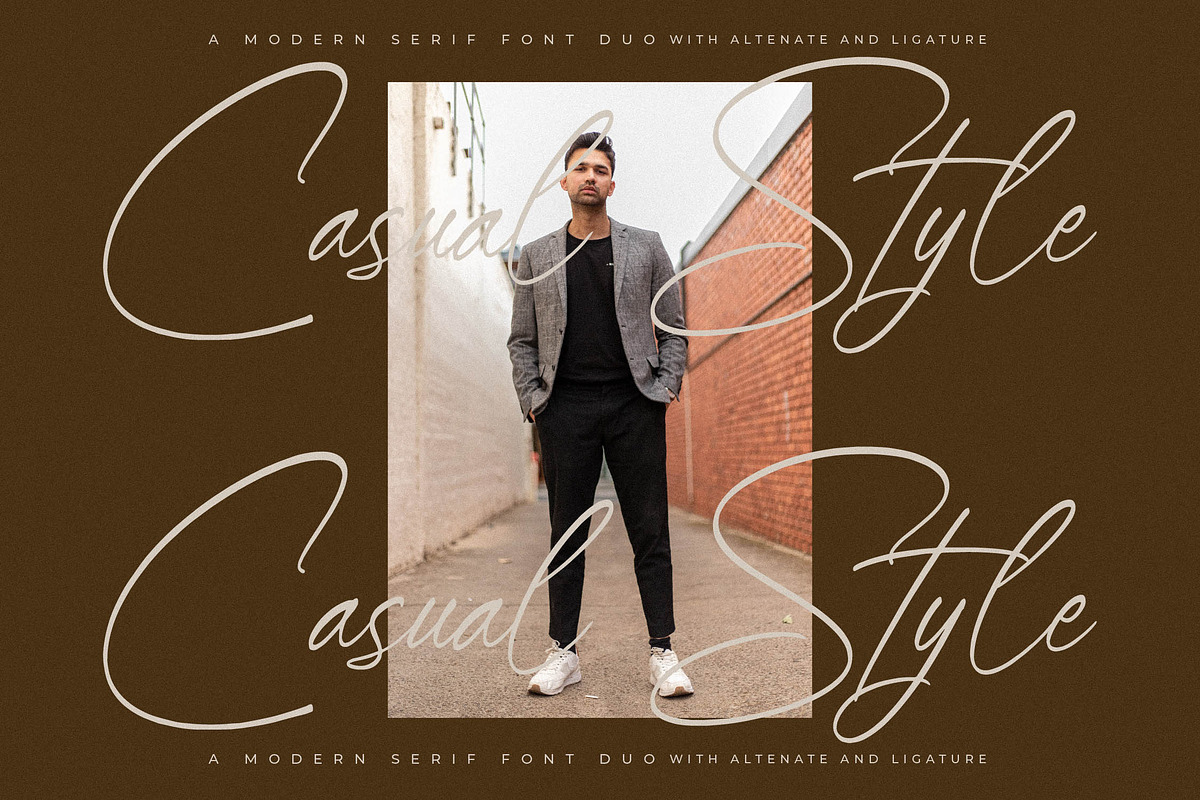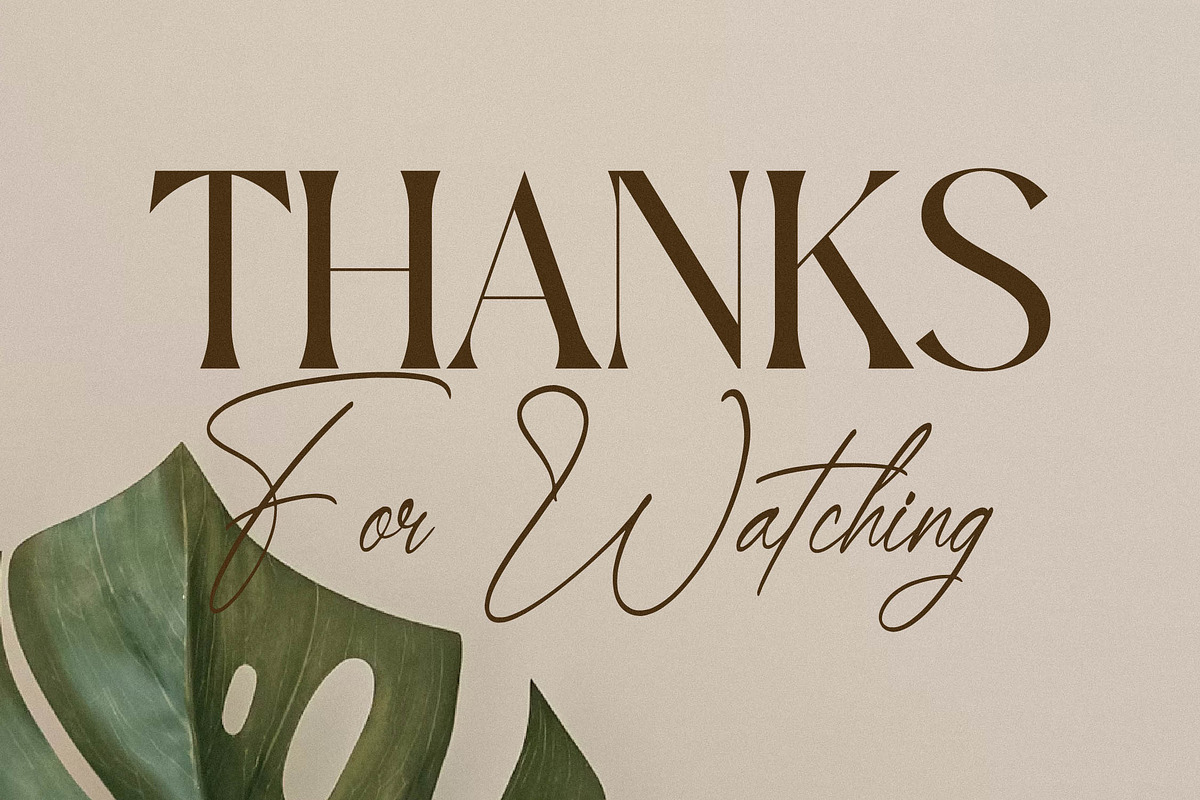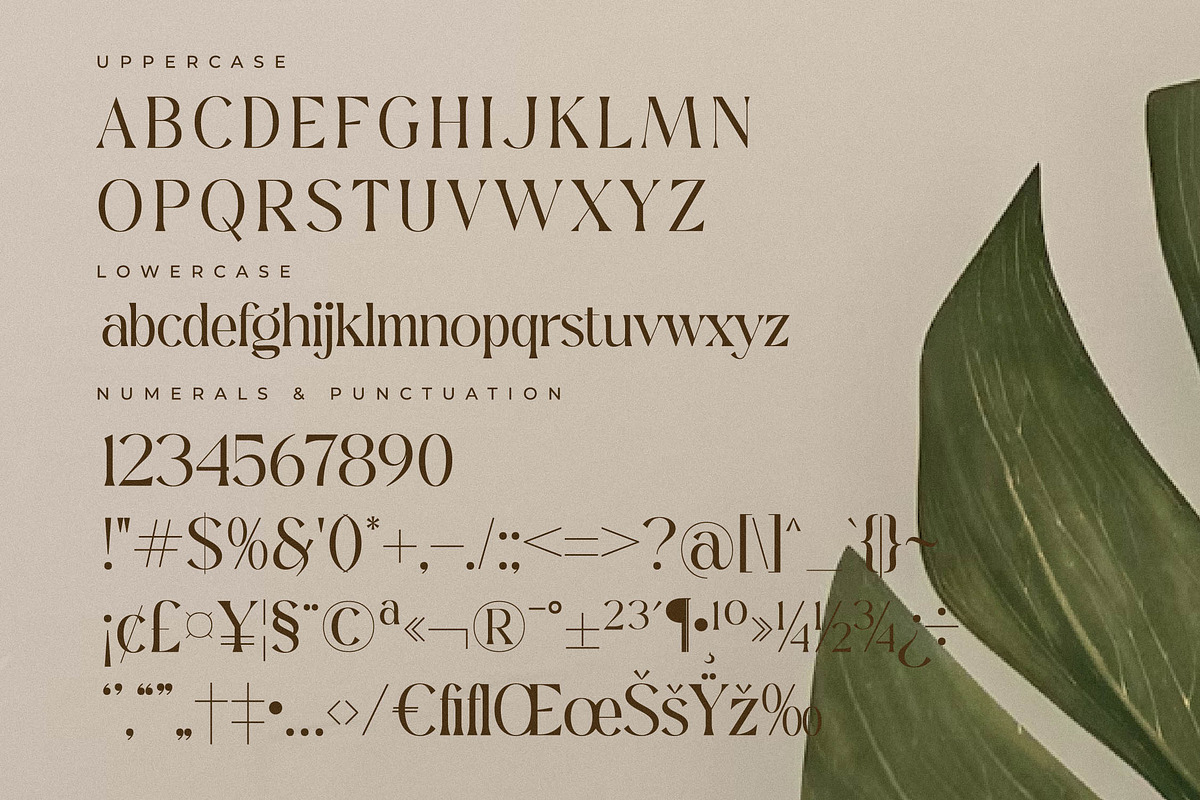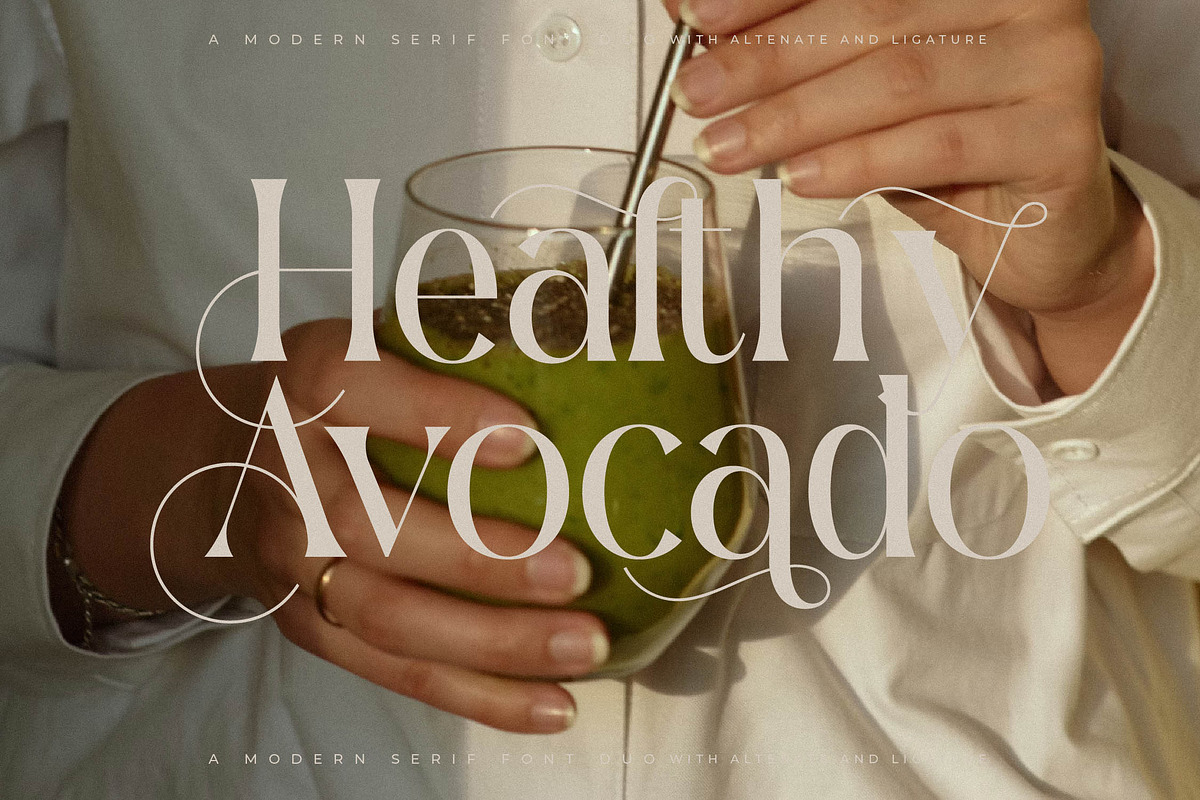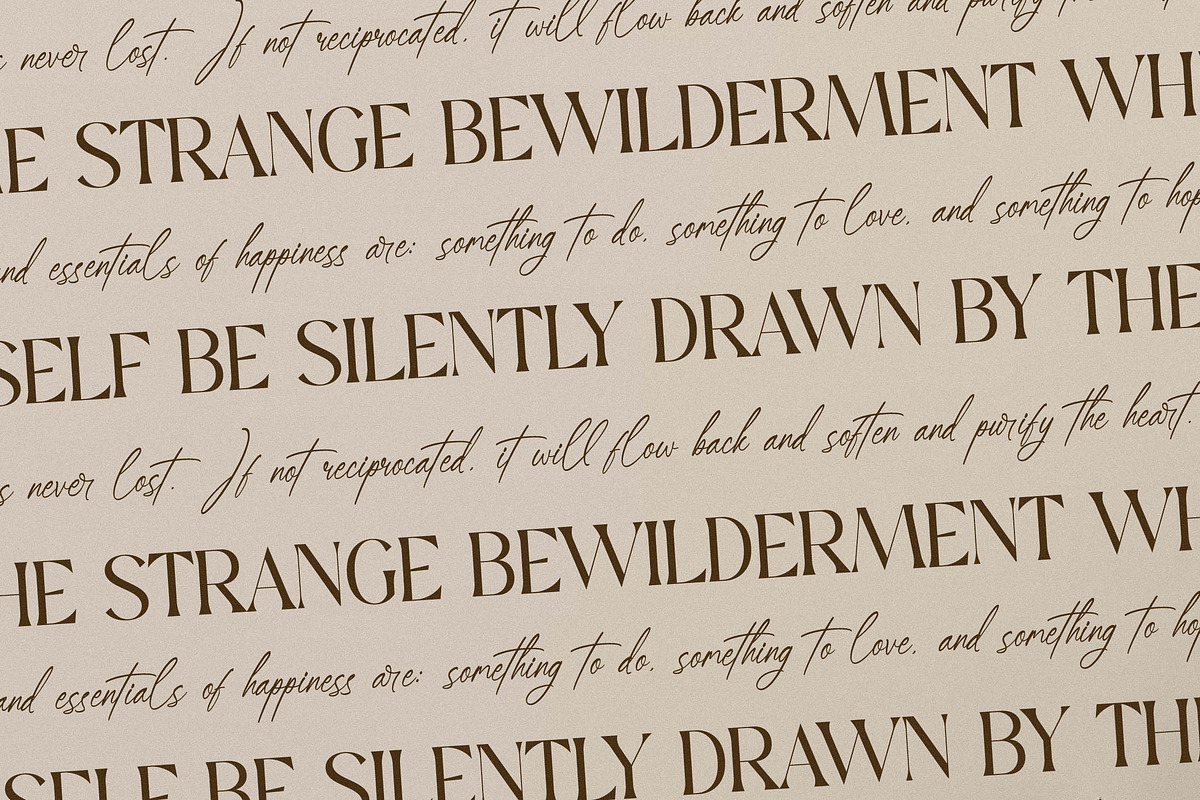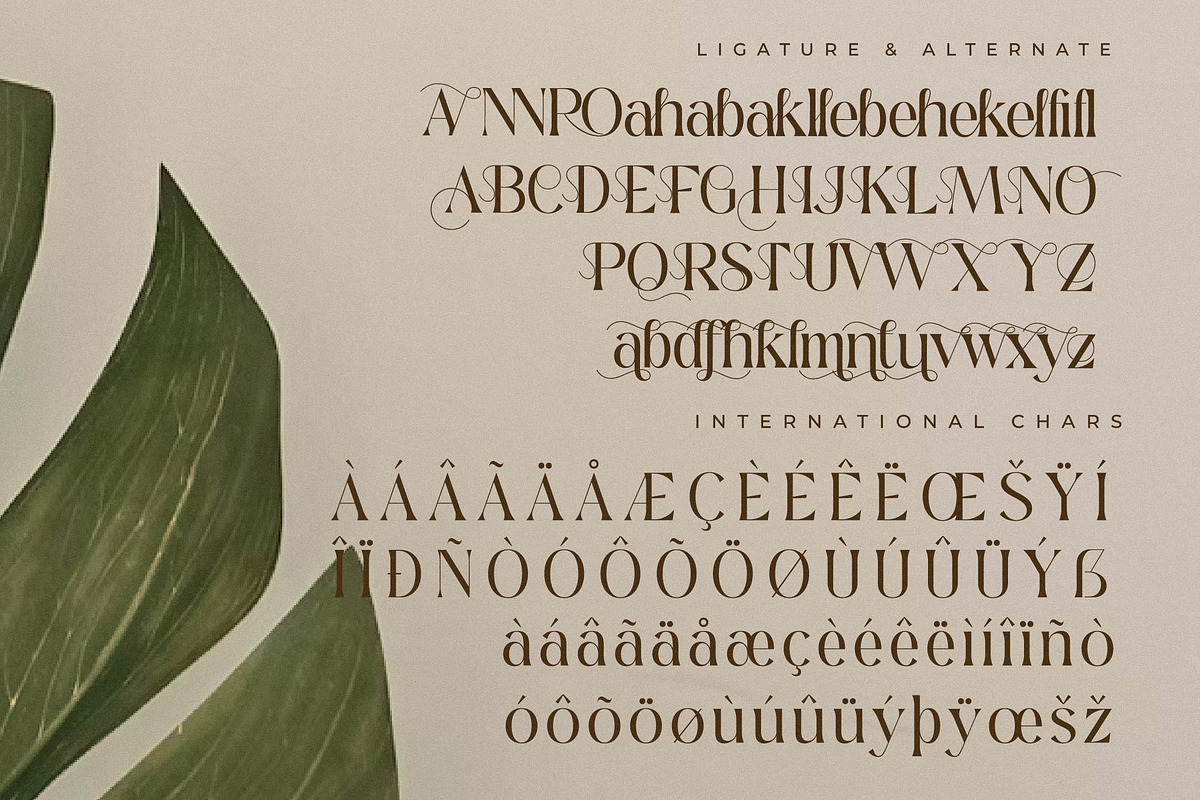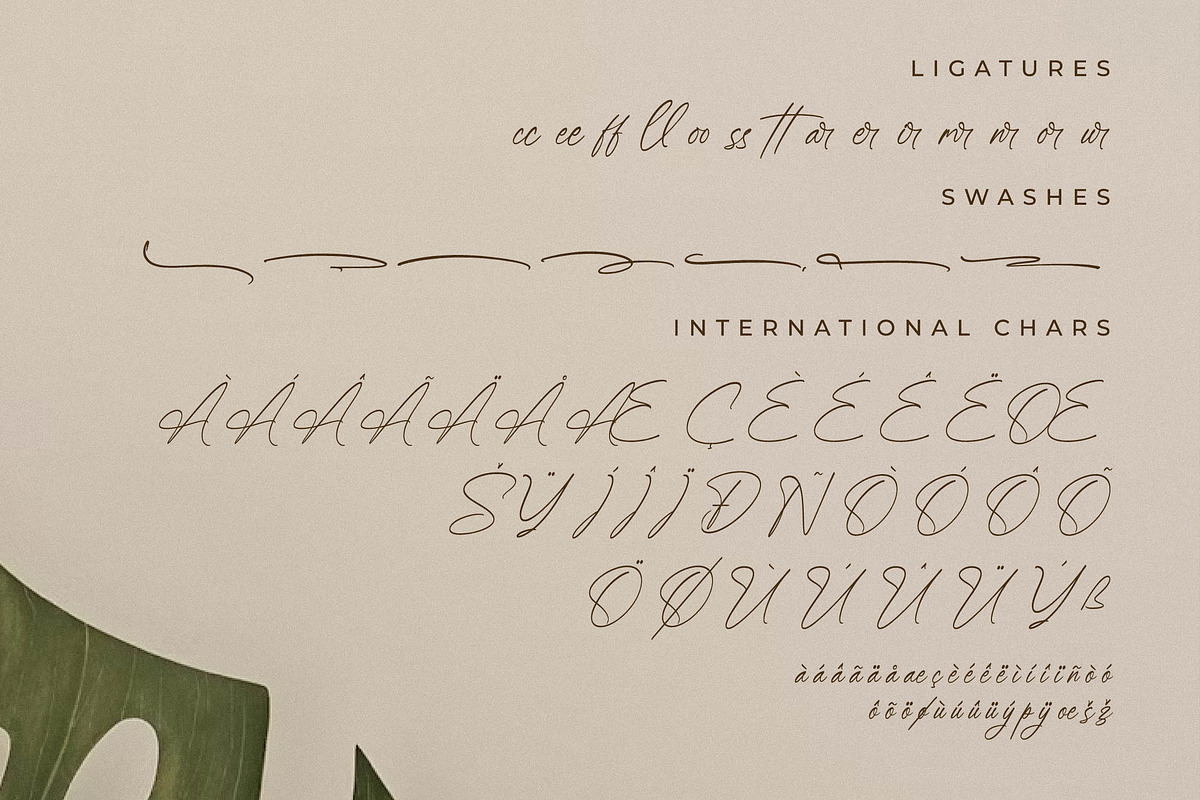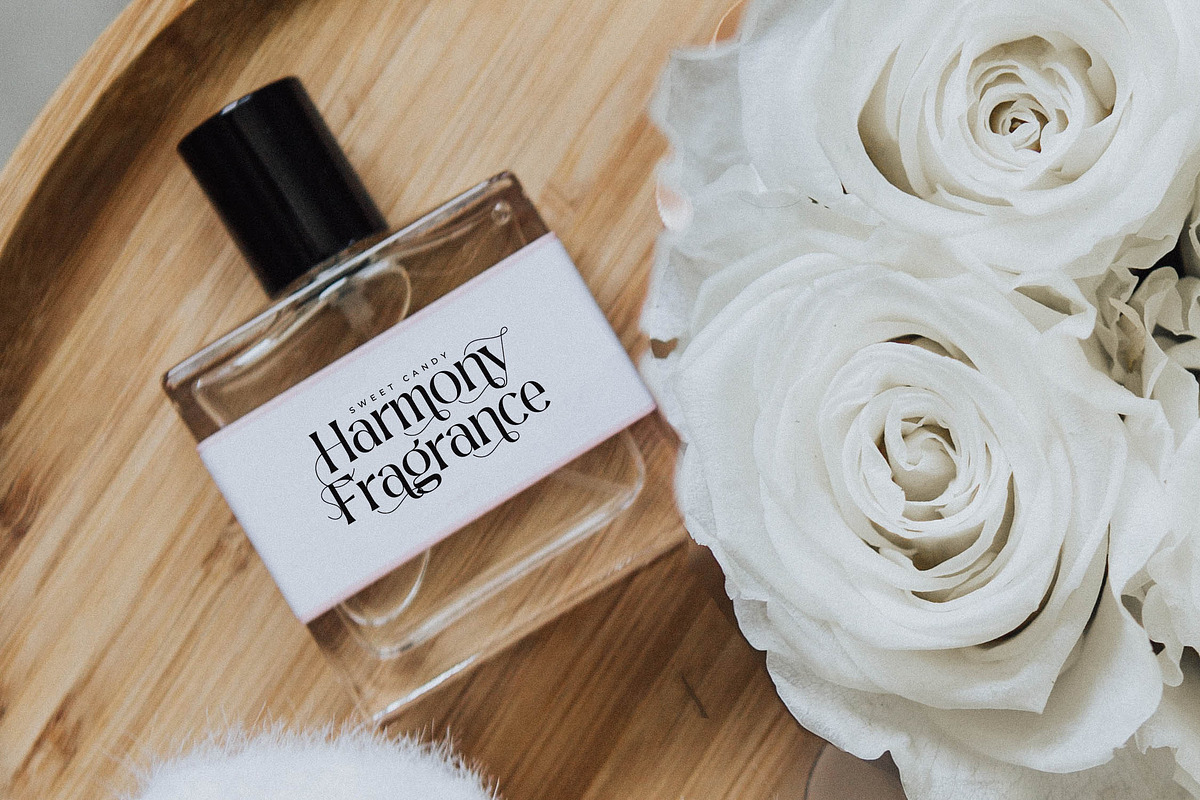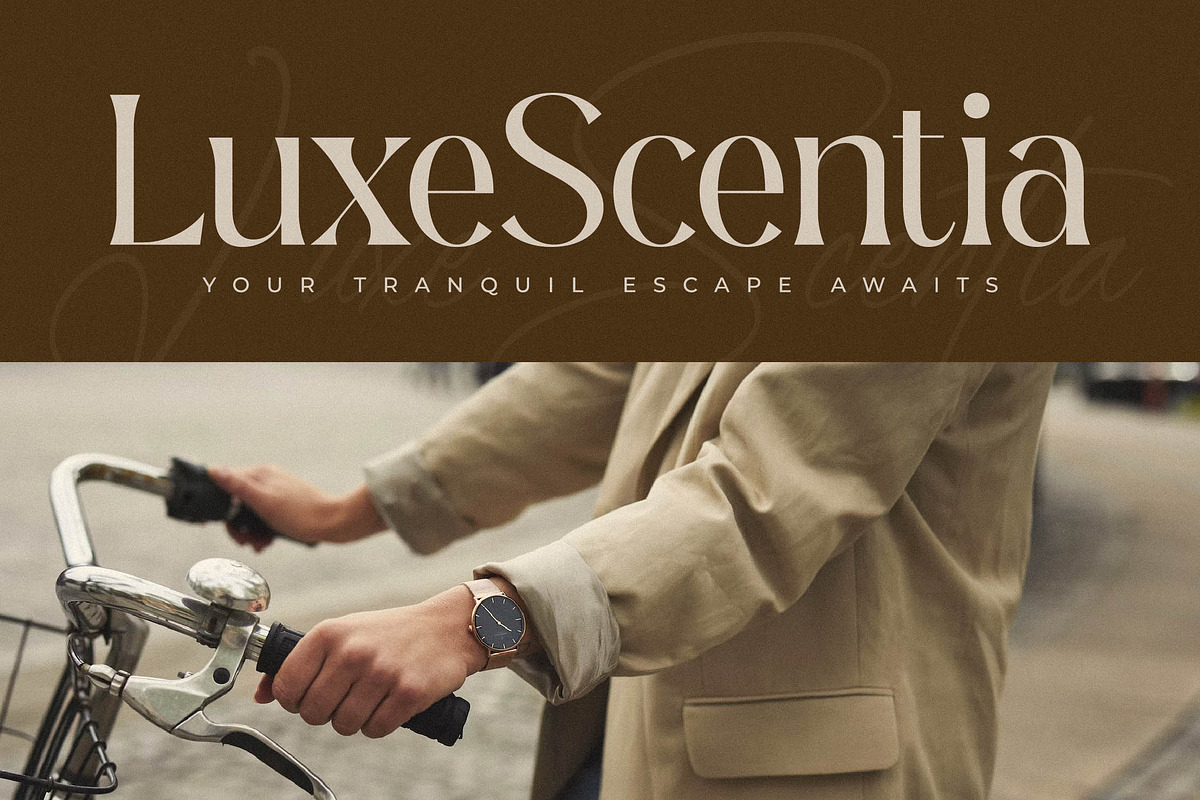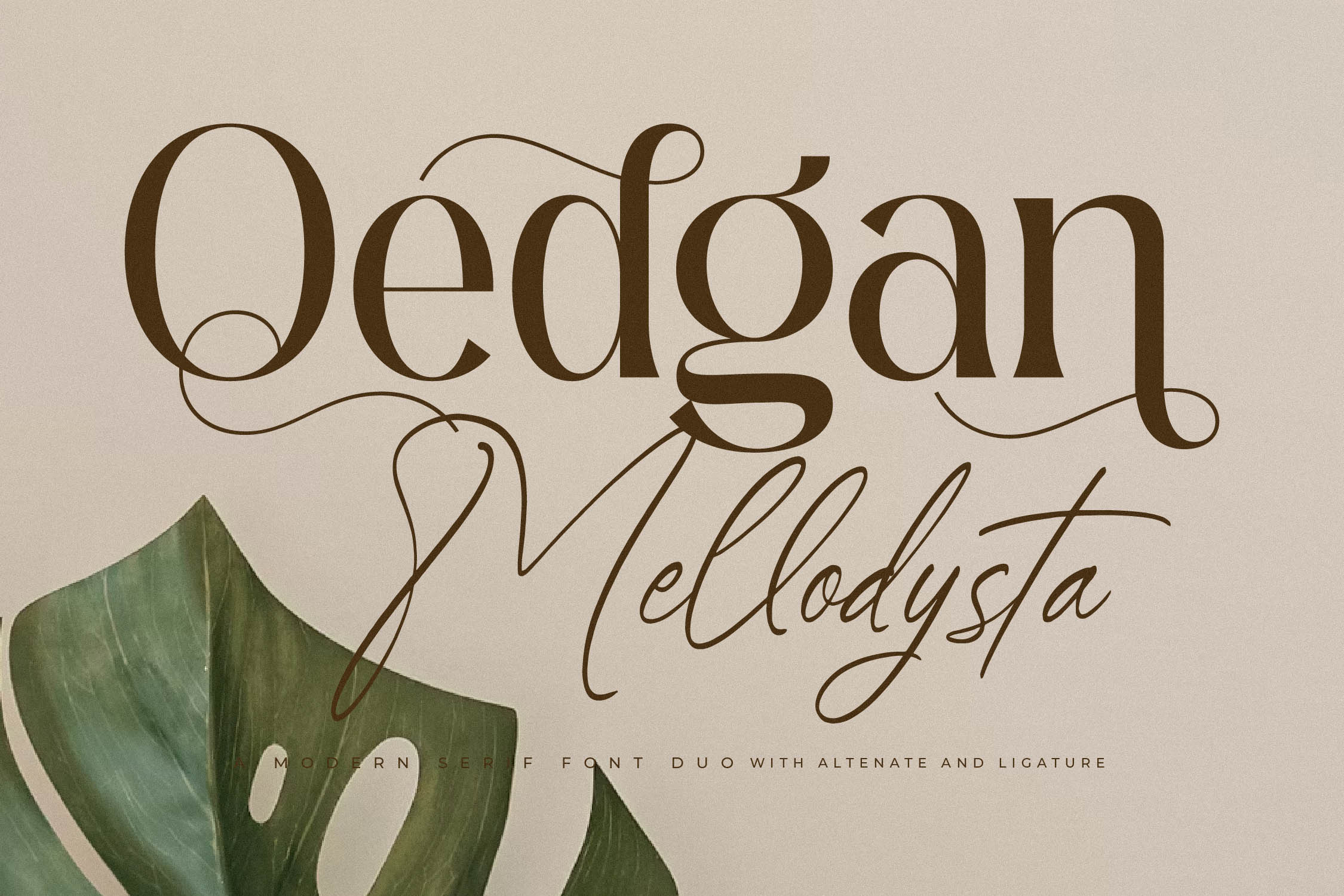
Qedgan Mellodysta A Modern Font Duo
Proudly present Qedgan Mellodysta Font Duo , created by Storytype, A serif and script typeface that has own unique style & modern look. This typeface is perfect for an elegant & luxury logo, book or movie title design, fashion brand, magazine, clothes, lettering, quotes, and so much more.